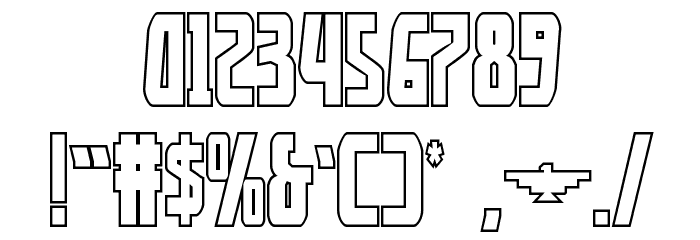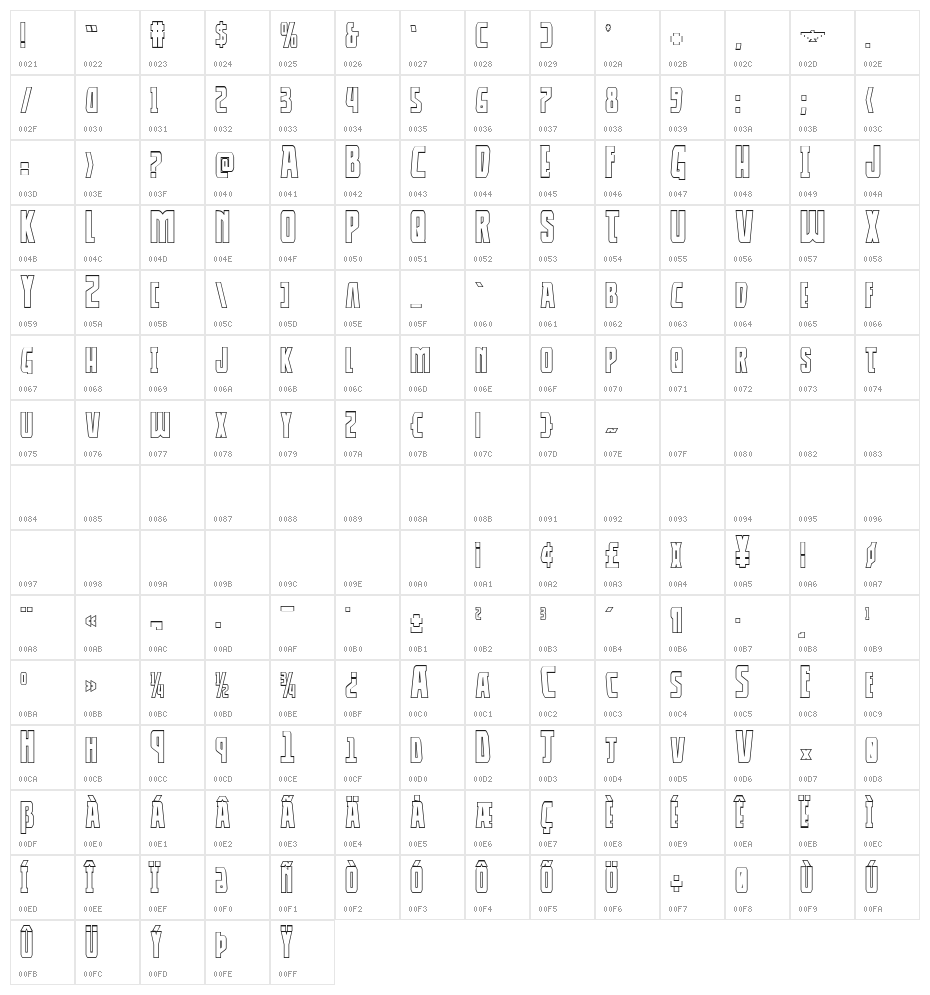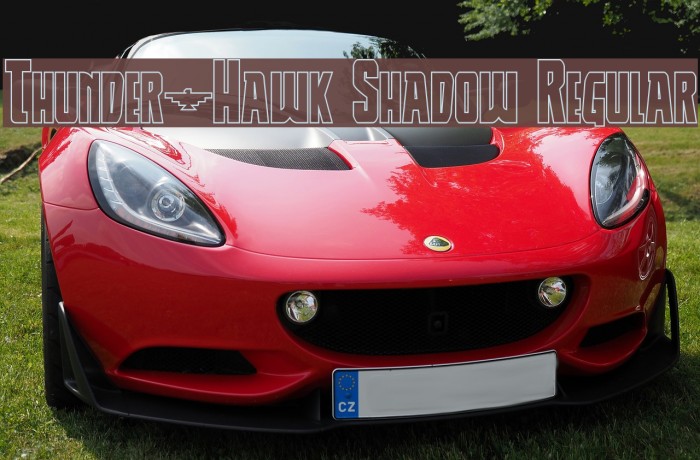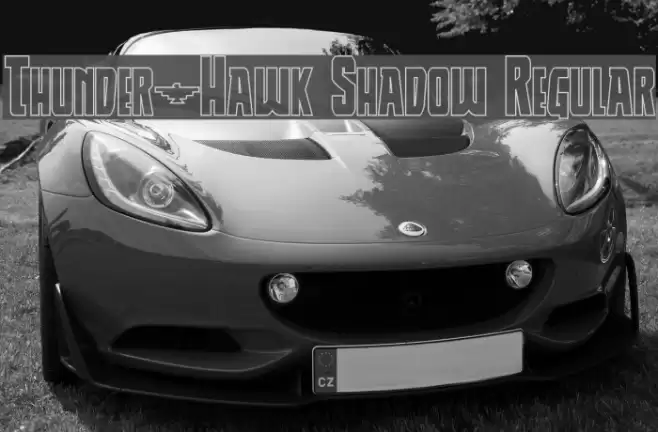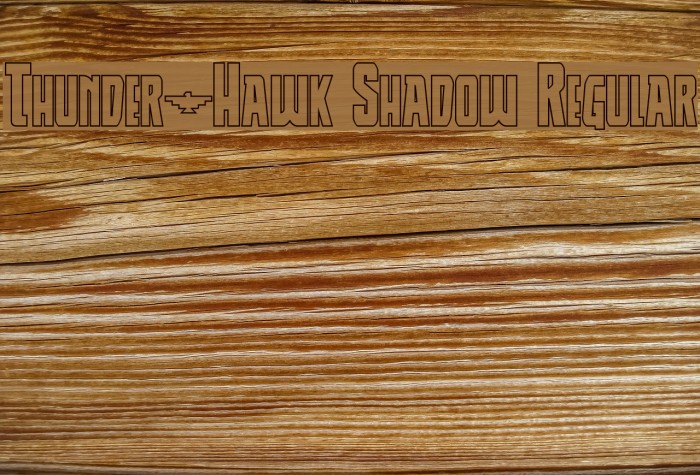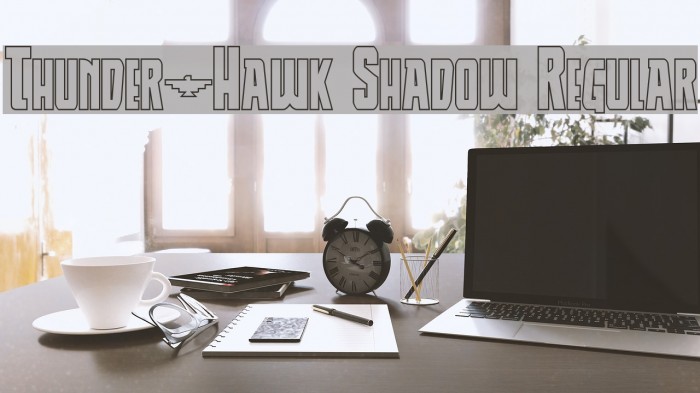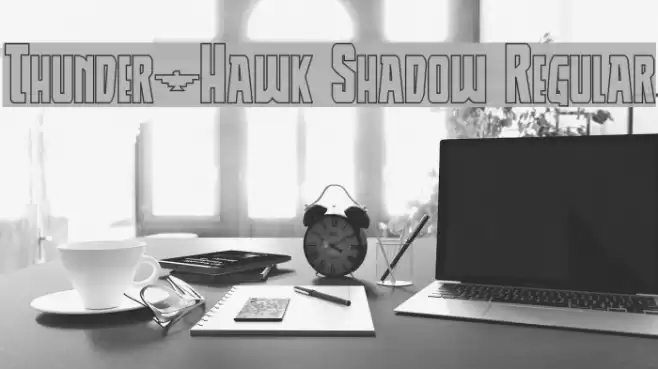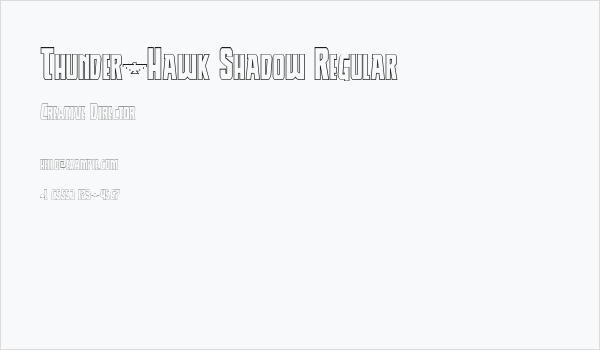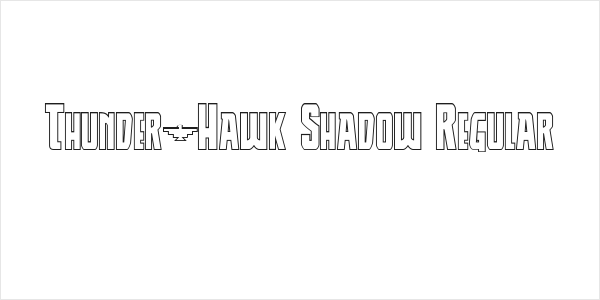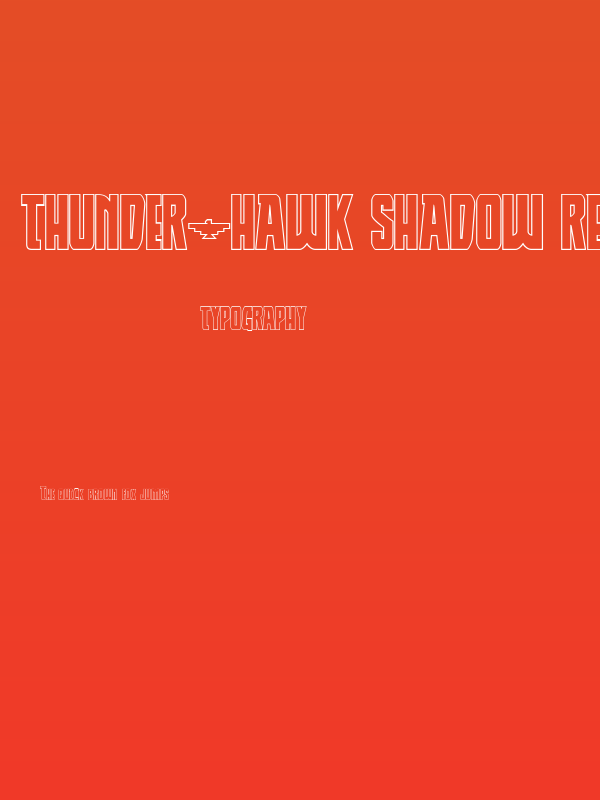
Thunder-Hawk Shadow Regular Font
Thunder-Hawk Shadow Regular Description
This font features a bold, geometric design with a strong presence. The characters are outlined, creating a shadow effect that adds depth and dimension. The uppercase letters are particularly striking, with angular lines and a blocky appearance that conveys strength and modernity. The numerals and special characters maintain this bold style, ensuring consistency across all elements. This font is ideal for making a statement, with its unique shadow effect enhancing its visual impact.
| Proposed Projects | Ideal for posters, logos, and headlines where a strong, modern look is desired. |